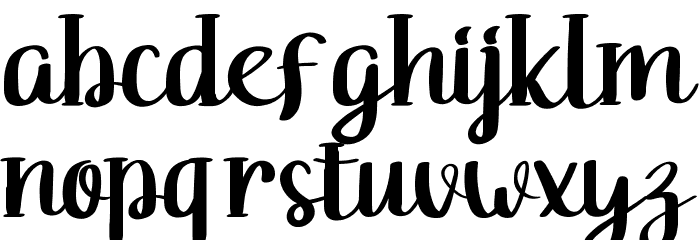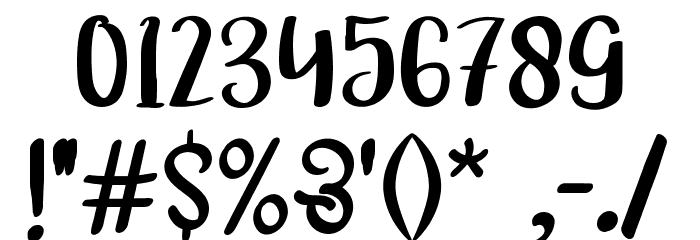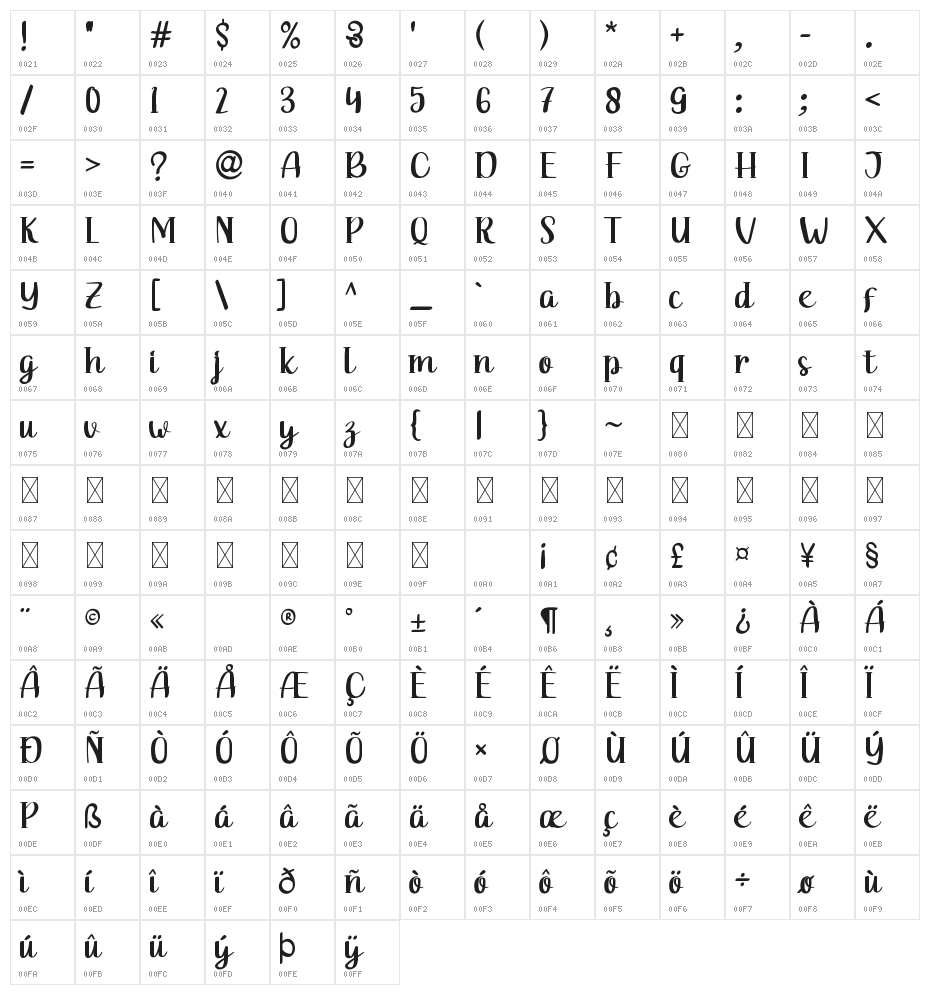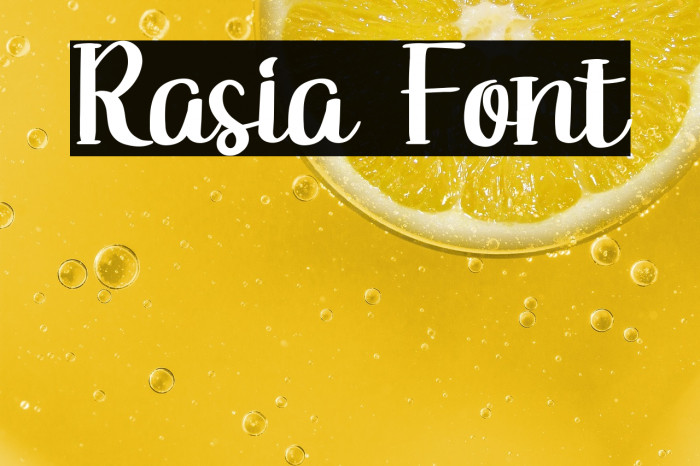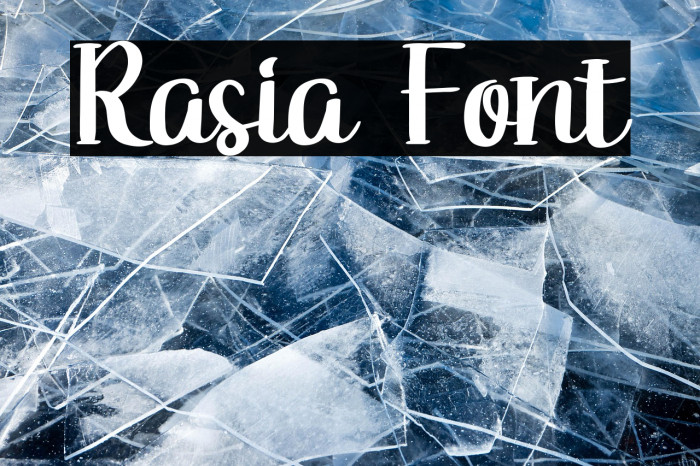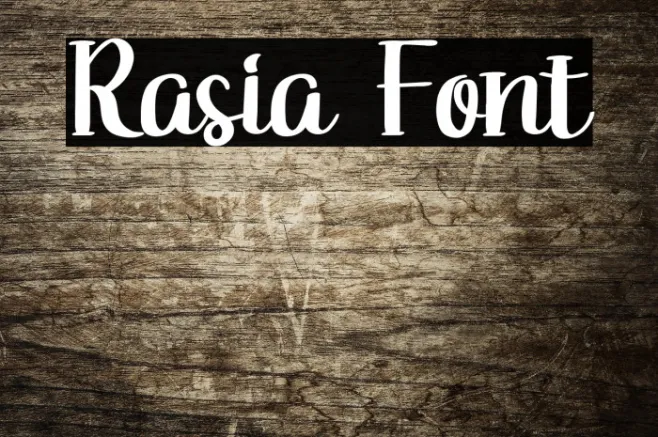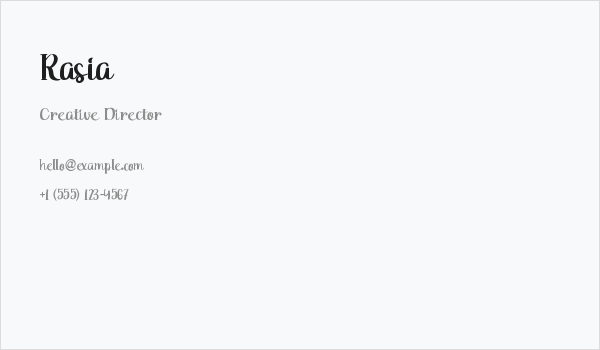
Rasia Font
This font exhibits a playful and dynamic style with a handwritten feel. The uppercase letters are bold and slightly condensed, featuring unique curves and flourishes that add character. The lowercase letters maintain a consistent flow, with some letters extending below the baseline, enhancing the font's whimsical nature. The numerals are bold and clear, ensuring readability. Special characters are creatively designed, complementing the overall aesthetic. The font's strokes vary in thickness, providing a medium contrast that adds depth and visual interest.
A playful, handwritten-style font with medium contrast and dynamic curves.
- Proposed Projects: Ideal for creative projects such as greeting cards, invitations, branding for playful or artistic businesses, and social media graphics.
- Use Case: Logos, Headlines, Invitations